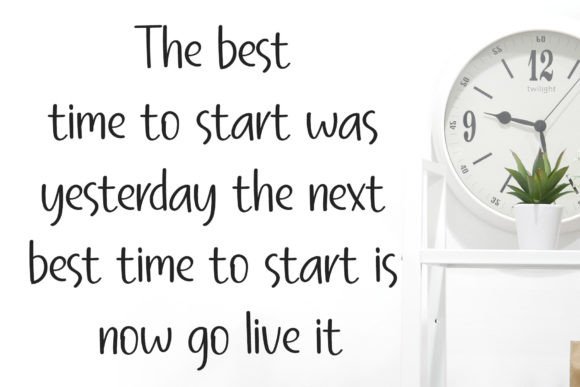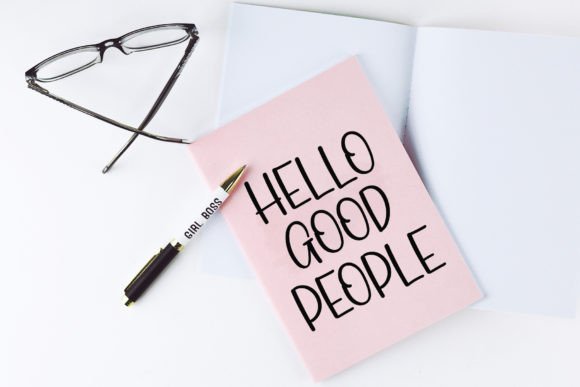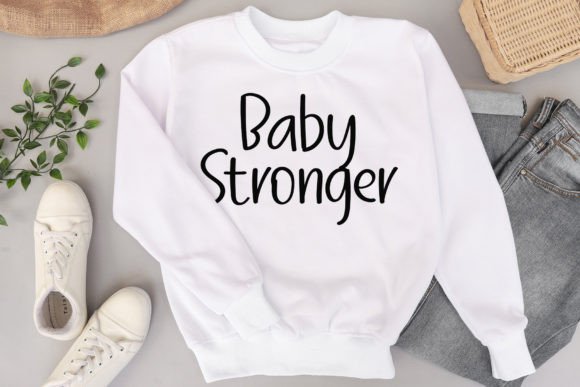
Introduction to Funky Child Font
Funky Child is a sweet and beautiful handwritten font.
Featuring characters that dance along the baseline, this font will add a luxury spark to any design project you wish to create .
Key Features of Funky Child Font
Why Choose Funky Child Font?
Funky Child Font offers exceptional quality and versatility, making it a valuable addition to your design toolkit. Whether you’re creating for personal projects or commercial use, Funky Child Font delivers professional results.